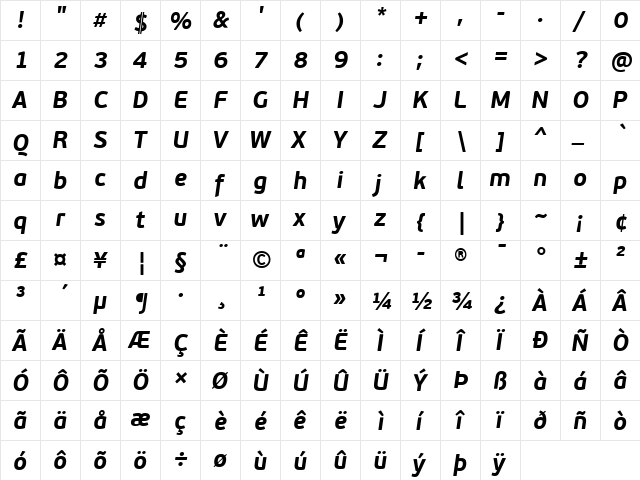
PF BeauSans Pro Bold Italic
| Foundry | Parachute蠗orldwide |
| Designer | Panos Vassiliou |
Design Context for PF BeauSans Pro Typeface
PF BeauSans Pro is a composed and adaptable typeface that performs quietly and consistently across a wide range of design contexts. The dynamic lean of this cut emphasises speed and emphasis in any layout. Its bold stroke weight gives it real presence on the page.